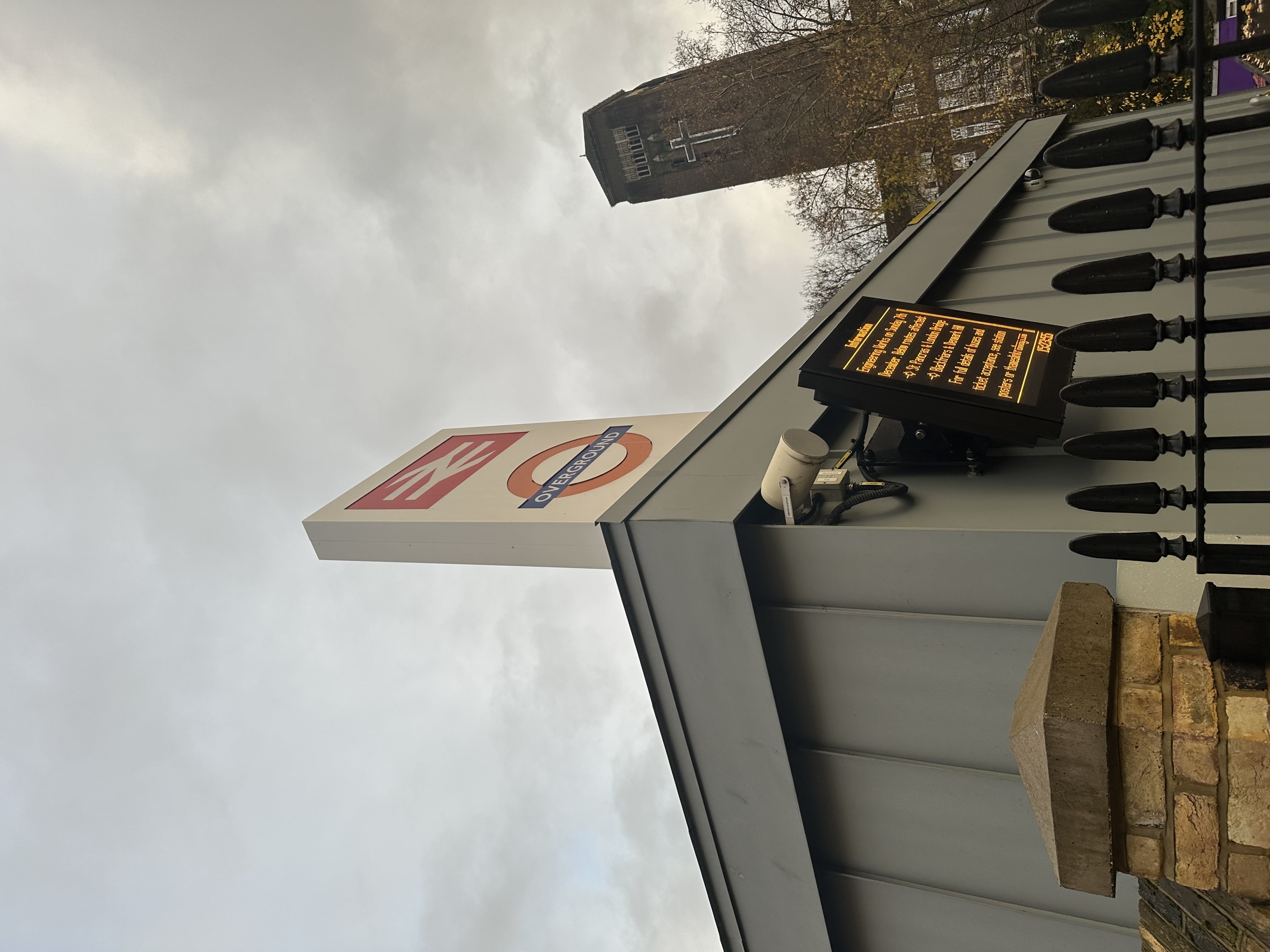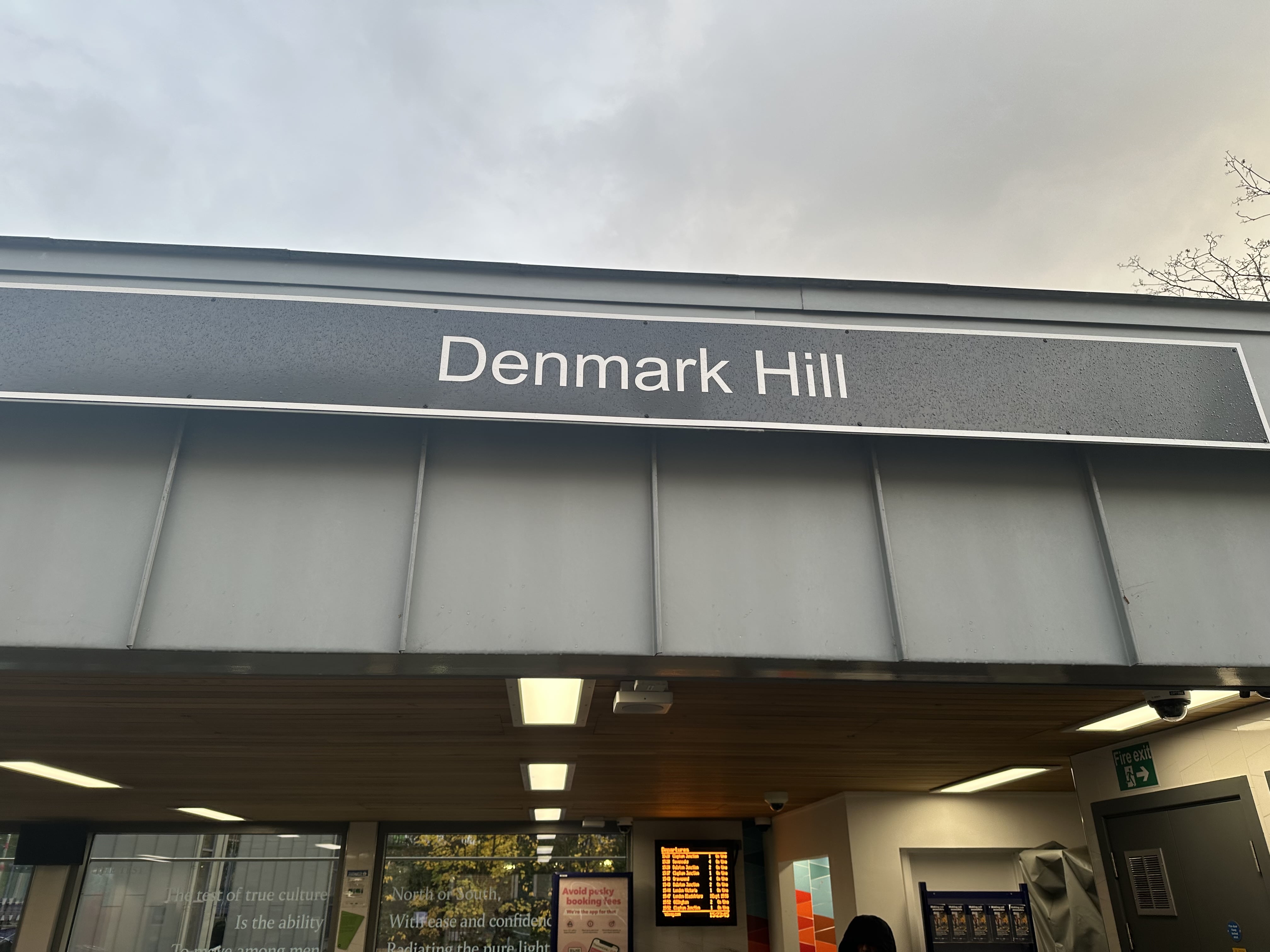
Denmark Hill Node is a site-specific display typeface developed in response to the visual language of Denmark Hill station. The typeface is constructed using a modular grid system, where letterforms are built from connected nodes and linear segments, referencing transport networks, wayfinding systems, and infrastructural signage. The design explores rhythm, spacing, and structure, translating architectural and navigational elements into typographic form. Denmark Hill Node is intended for large-scale display, signage, and experimental applications where structure and place are central.